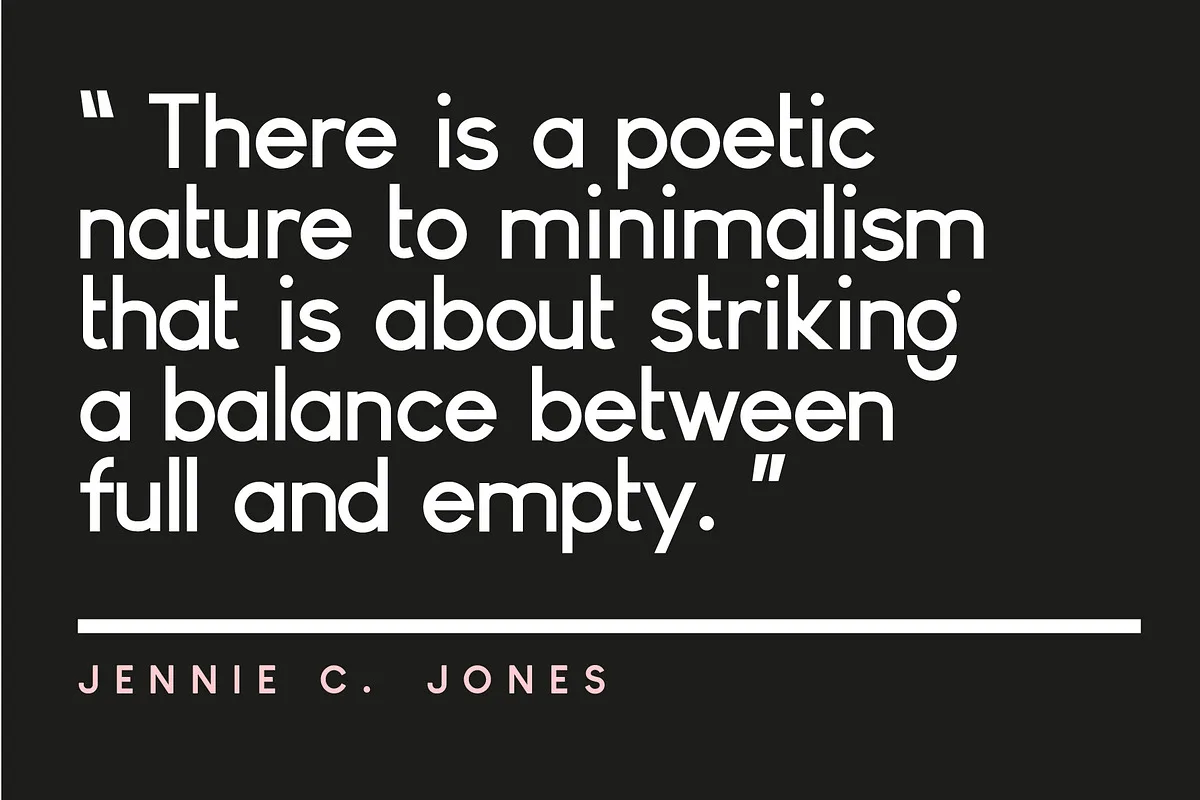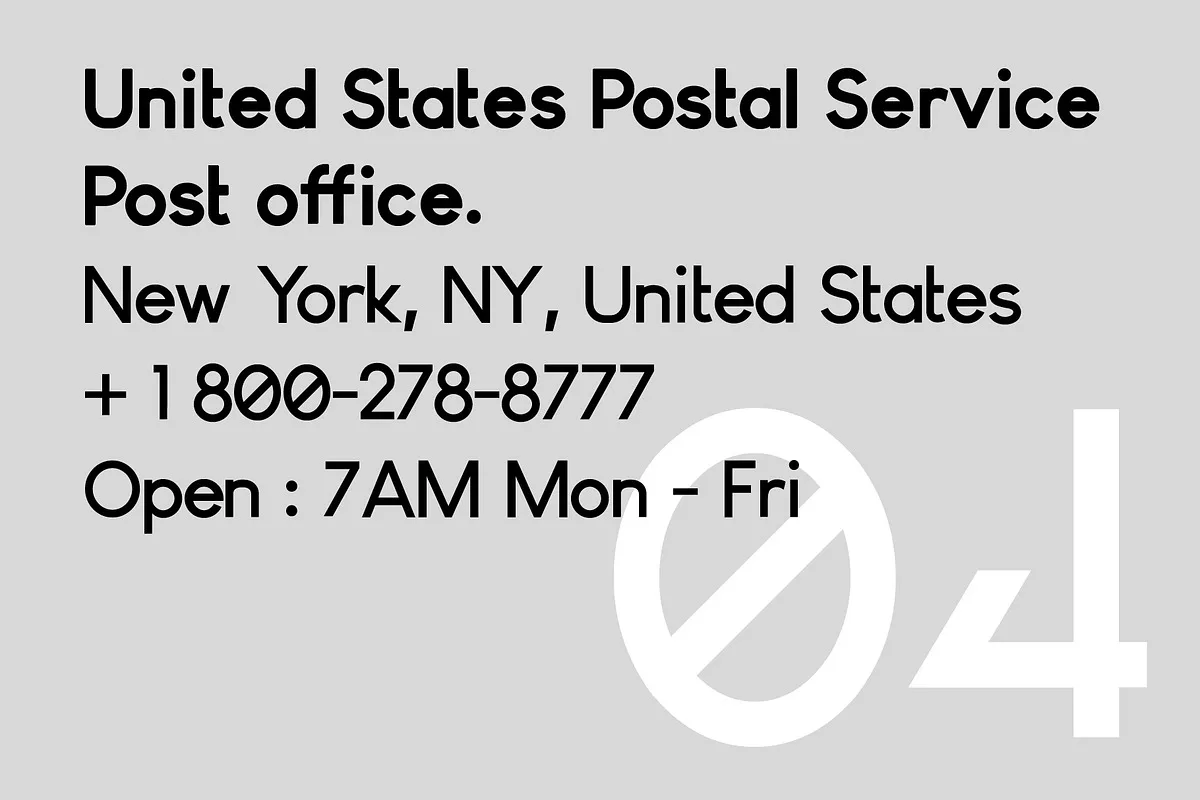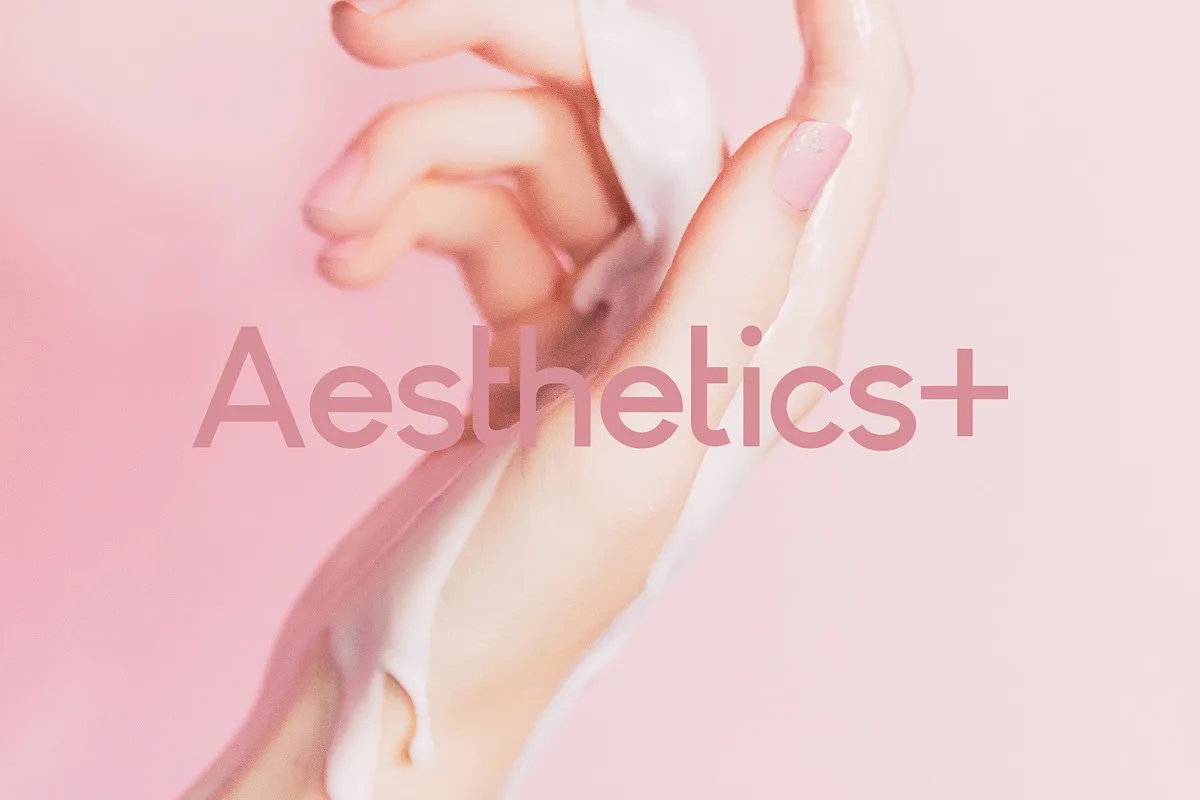
Geomatik is a modern sans-serif font with 2 weights. It’s just experimental enough to be unique but classic enough to versatile from body copy to word marks. Great for mastheads, pull quotes and fashion editorials. Make it your alternative to Helvetica.
- Comes with 2 weights
- Uppercase, Lowercase, Numbers and Punctuation.